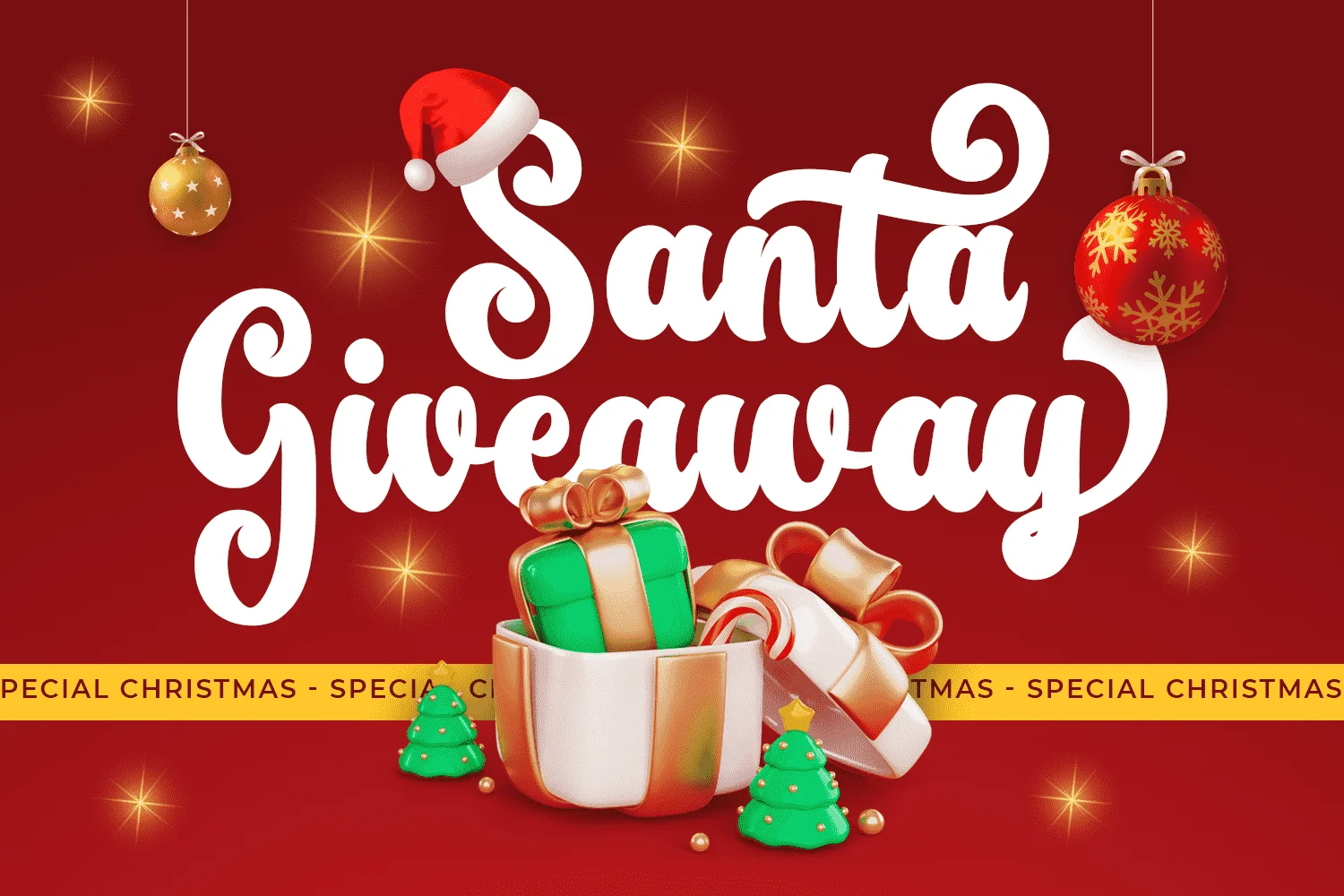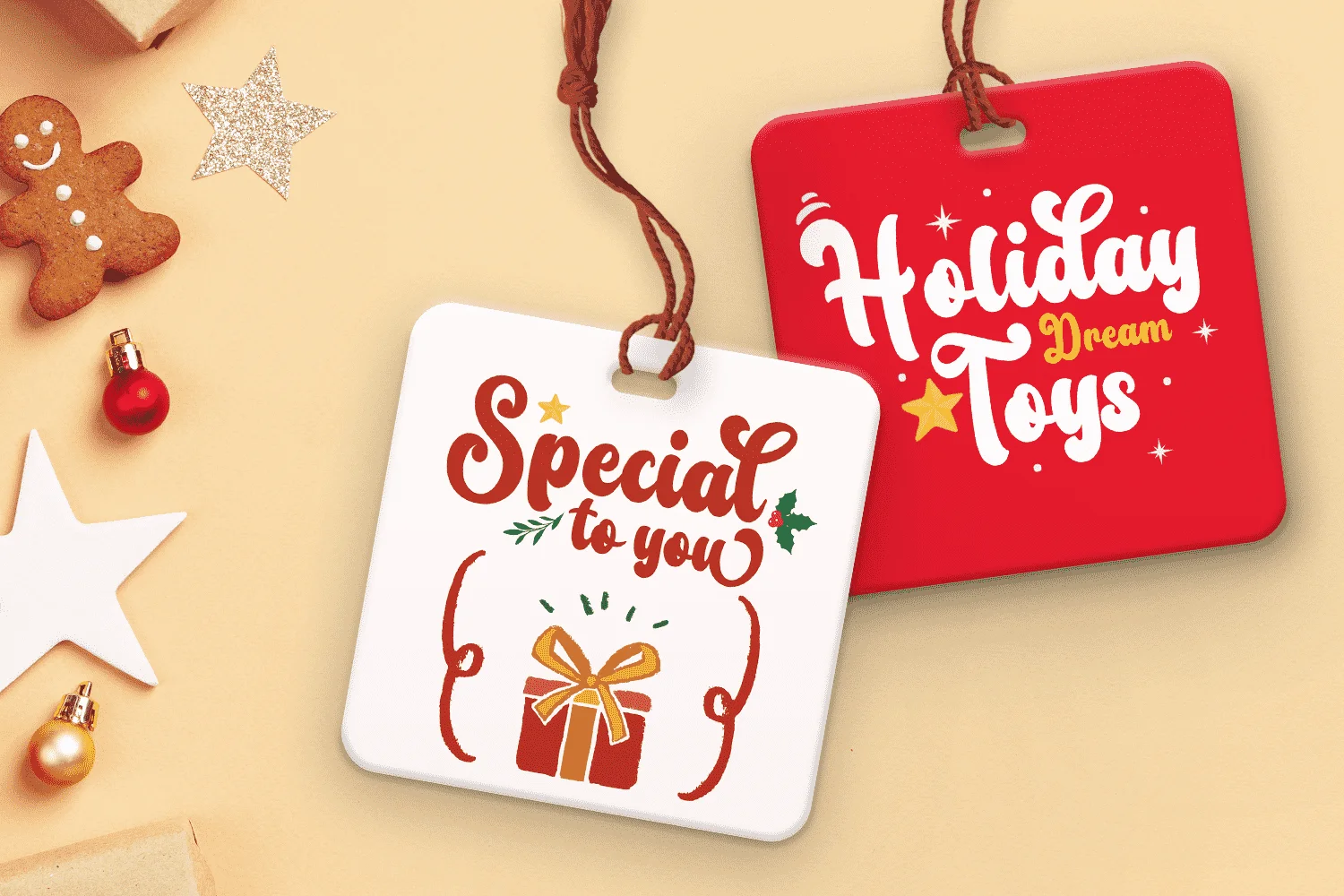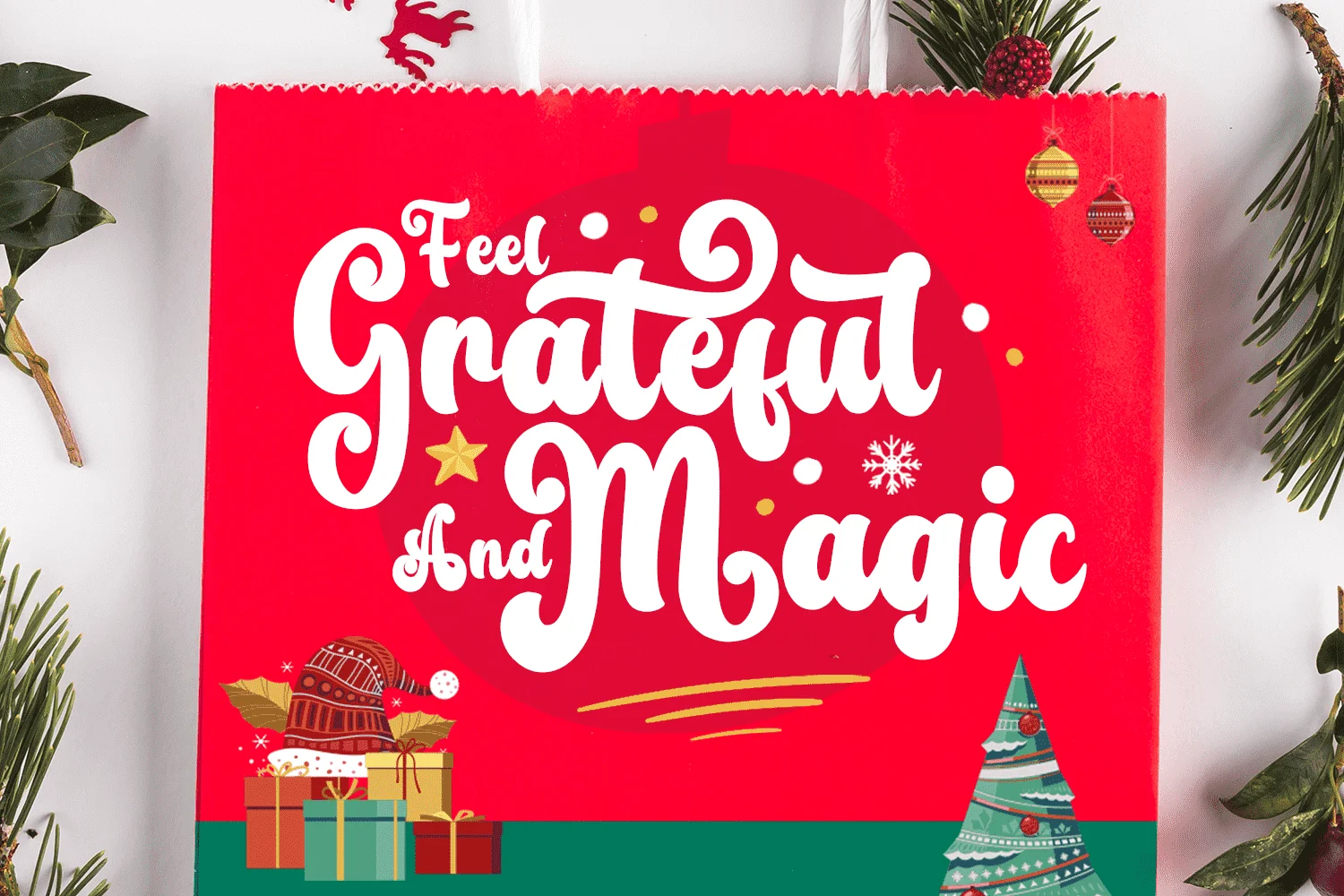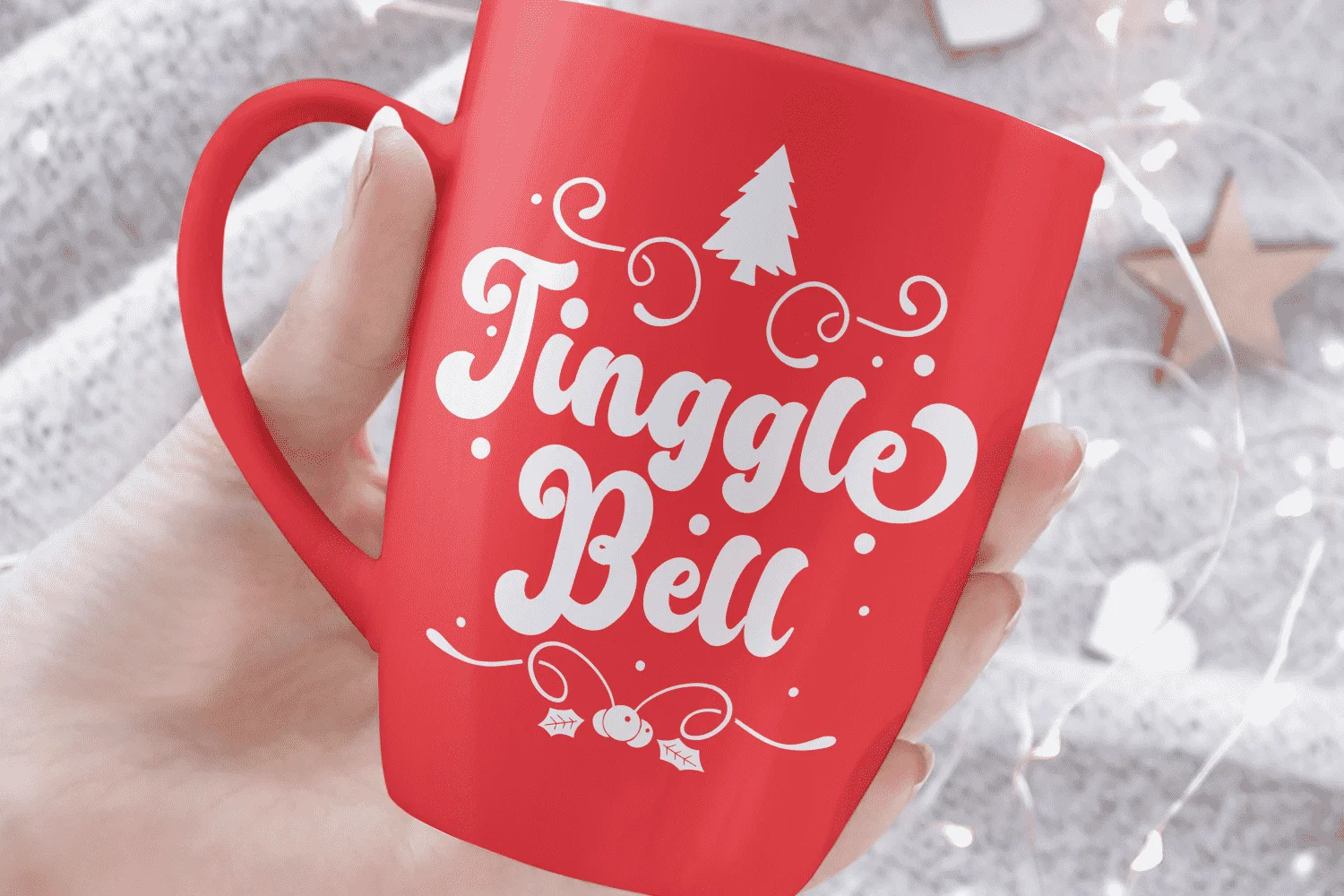
This versatile font is perfect for Christmas greeting cards, holiday advertisements, seasonal marketing materials, festive social media posts, Christmas party invitations, holiday packaging designs, winter event posters, Christmas website headers, seasonal newsletters, and traditional Christmas decorations.
Christmas Font is exciting because it embodies the timeless essence and universal appeal of Christmas celebrations through its classic letterforms that capture the joy, warmth, and festive spirit that define the holiday season. The font features beautifully balanced characters with traditional proportions and subtle seasonal flourishes that make any text feel instantly festive and celebratory. Each letter showcases careful attention to detail with gentle curves and elegant strokes that evoke the cozy warmth of Christmas gatherings and the magical anticipation of the holiday season. The design strikes the perfect balance between festive charm and professional versatility, making it suitable for everything from intimate family Christmas cards to large-scale commercial holiday campaigns while maintaining consistent readability and visual appeal.
The Christmas Font family includes comprehensive style variations: Regular, Bold, Light, Italic, and Condensed versions. The collection features special seasonal elements including holly leaf accents, snowflake details, star flourishes, and traditional Christmas ornaments. Additional components include festive borders, holiday frames, seasonal decorations, and classic ornamental designs that enhance the font's Christmas appeal and create cohesive holiday design themes across all applications.
Designers seeking reliable Christmas typography will find Christmas Font to be an essential resource for creating effective holiday communications that resonate with audiences of all ages and backgrounds. This thoughtfully crafted font transforms ordinary text into engaging Christmas messages that capture attention while maintaining the warm, welcoming spirit that makes the holiday season special for families and communities worldwide.
The typeface includes extensive character support with international language compatibility and comprehensive punctuation sets for global Christmas campaigns. The font's balanced design ensures excellent performance across all media formats, from digital screens to printed materials, while maintaining its festive character at every size.
Perfect for businesses, families, organizations, and designers working on Christmas projects, this font delivers dependable visual impact that communicates joy, celebration, and the universal magic of Christmas through typography that honors traditional holiday values while meeting modern design standards.